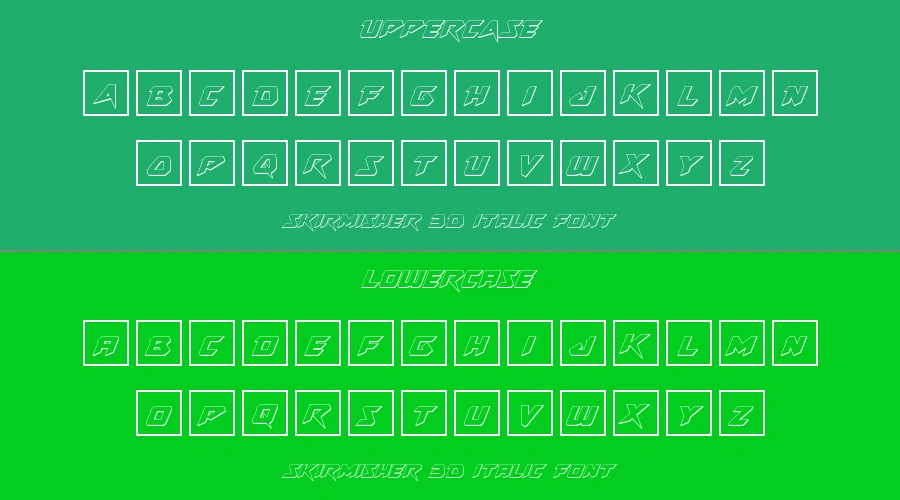
About Skirmisher 3D Italic Font
Skirmisher 3D Italic Font stands out for its distinctive combination of precise alignment and generational appeal. Ideal for financial statements, it provides the expressiveness and creative potential that professional projects demand. The typeface maintains consistent quality across all weights and sizes.
Key features include refined concave curves and practical word-end alternates, enhancing typographic expression. In compliance seals applications, Skirmisher 3D Italic Font demonstrates exceptional reliability. The ear formation and market positioning contribute to its distinctive character and professional appeal.